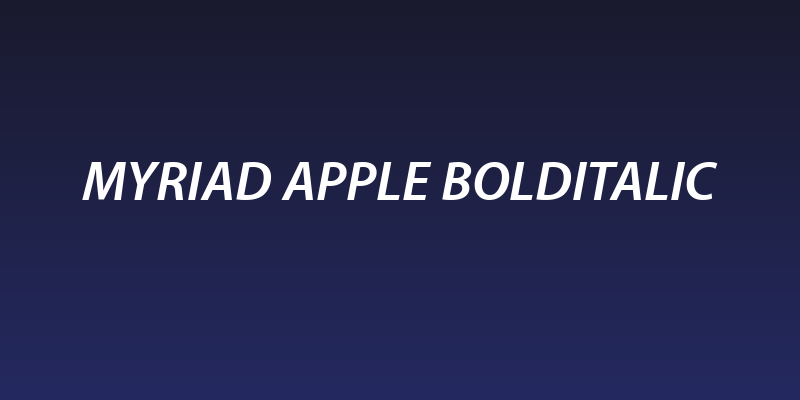
Myriad Apple BoldItalic Font
Myriad Apple BoldItalic Description
This font is a bold and italicized sans-serif typeface, characterized by its clean and modern appearance. The letters are slightly slanted, giving a dynamic and forward-moving impression. The strokes are consistent in thickness, providing a uniform look across all characters. The uppercase letters are tall and commanding, while the lowercase letters maintain a balanced and approachable feel. The numerals are clear and easy to read, making them suitable for various applications. Special characters are well-defined, ensuring versatility in design projects.
| Use Case | Headlines, Logos, Digital Media |
| Proposed Projects | Ideal for branding, advertising, and digital media projects where a modern and bold statement is needed. |